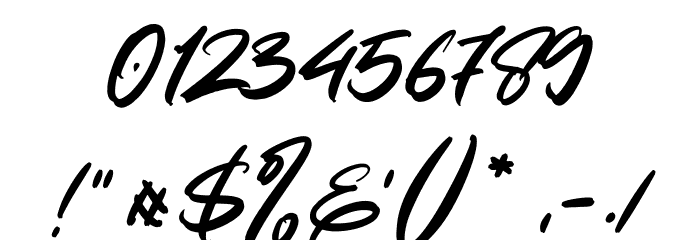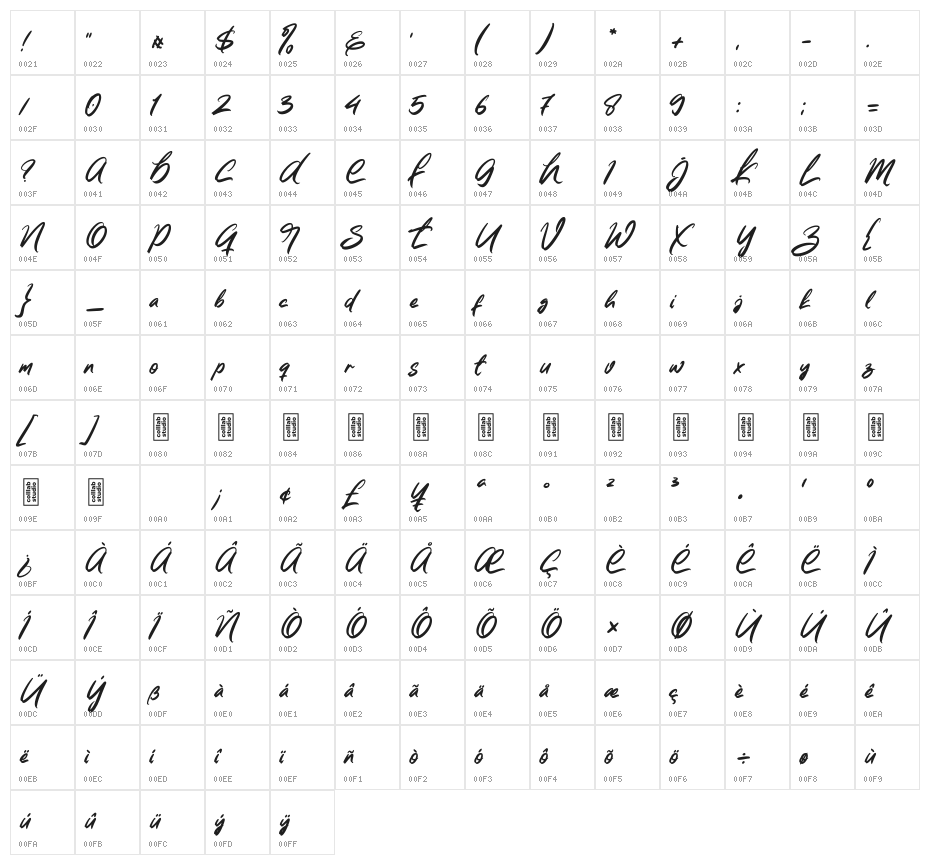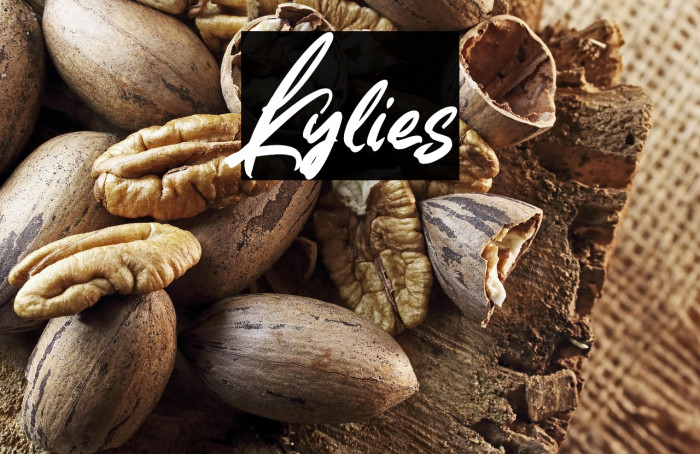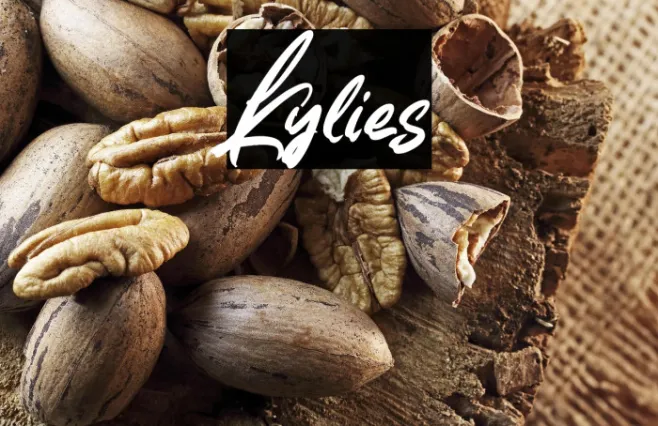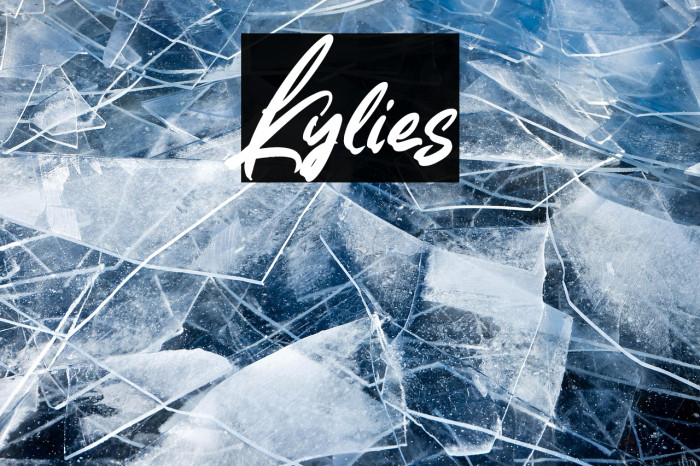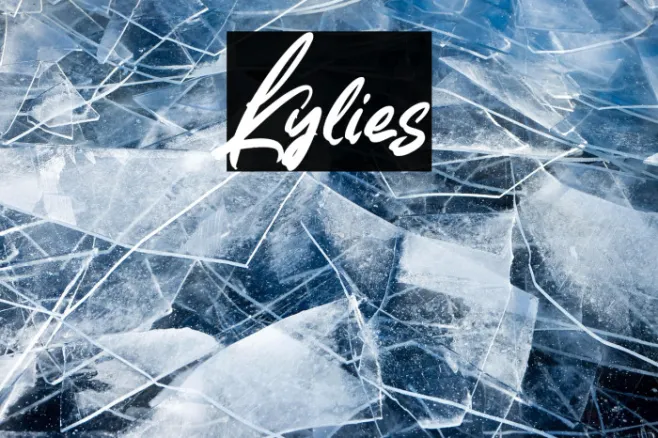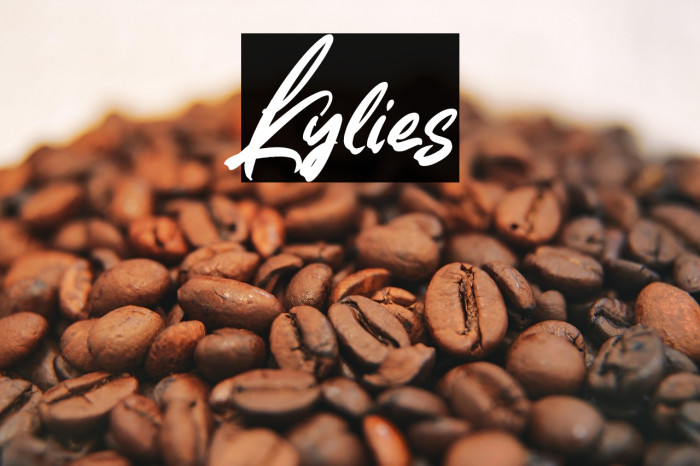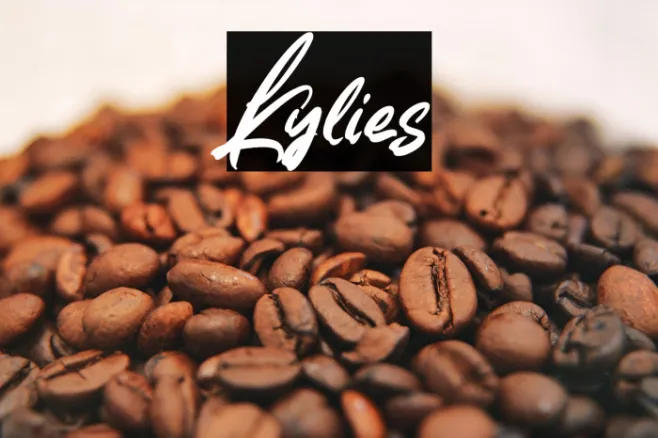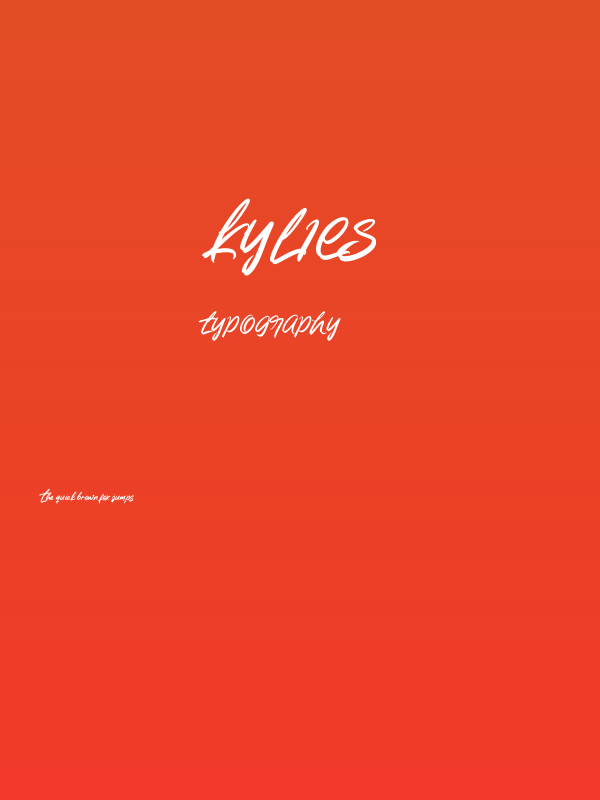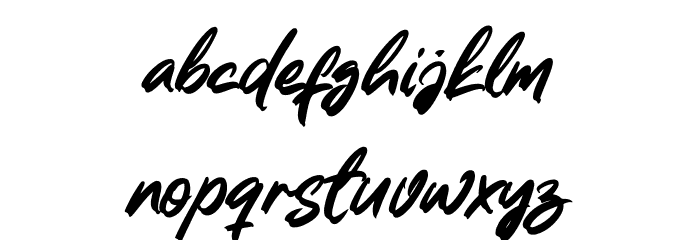
Kylies Font
Kylies Description
This font exudes a dynamic and energetic style, characterized by its bold, flowing script that mimics the fluidity of natural handwriting. The letters are connected with smooth, sweeping strokes, giving it a lively and spontaneous appearance. The uppercase and lowercase letters maintain a consistent rhythm, while the numbers and special characters integrate seamlessly into the overall design. The font's expressive nature makes it ideal for projects that require a personal touch or a sense of movement and creativity.
| Proposed Projects | Ideal for branding, invitations, greeting cards, and creative posters. |